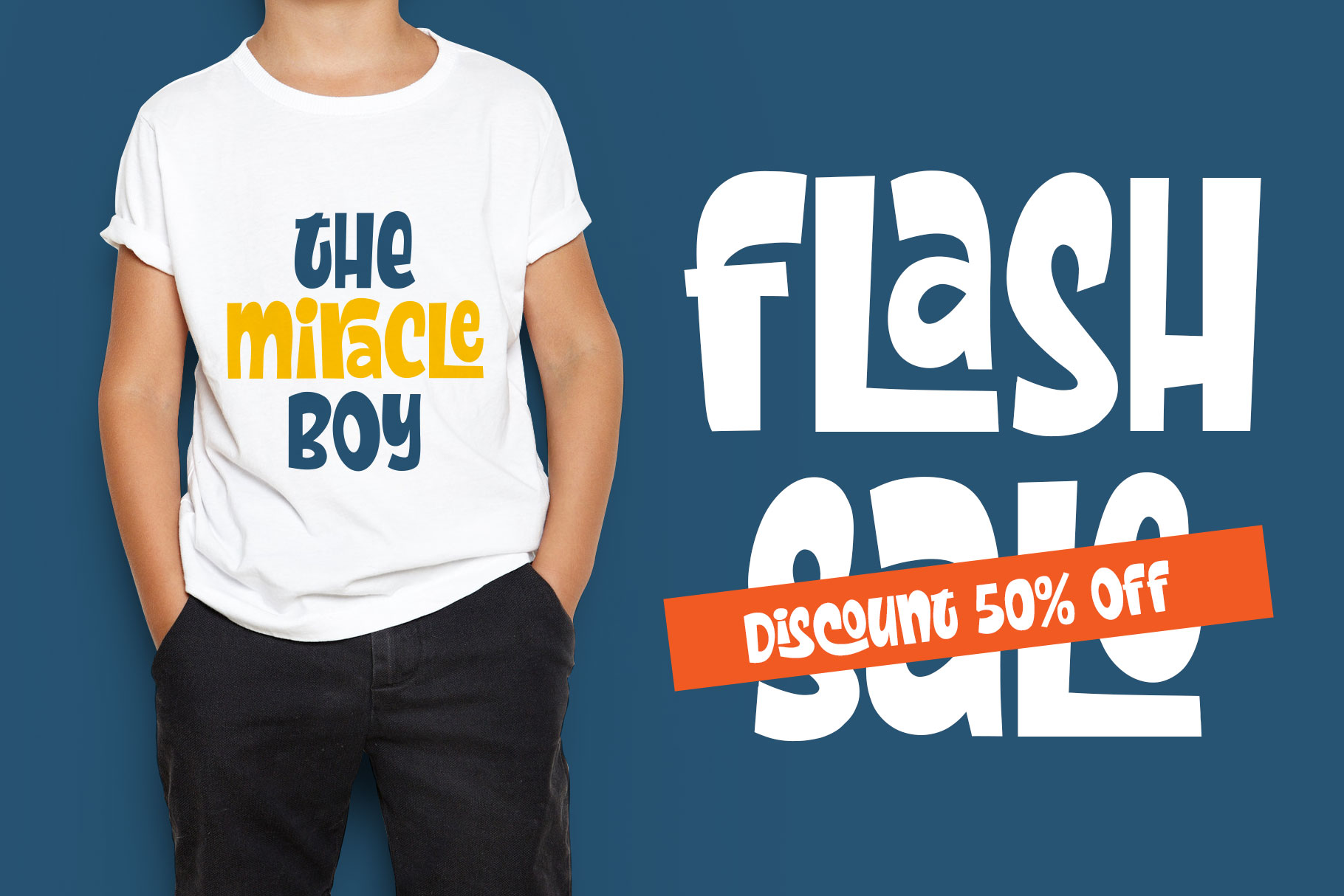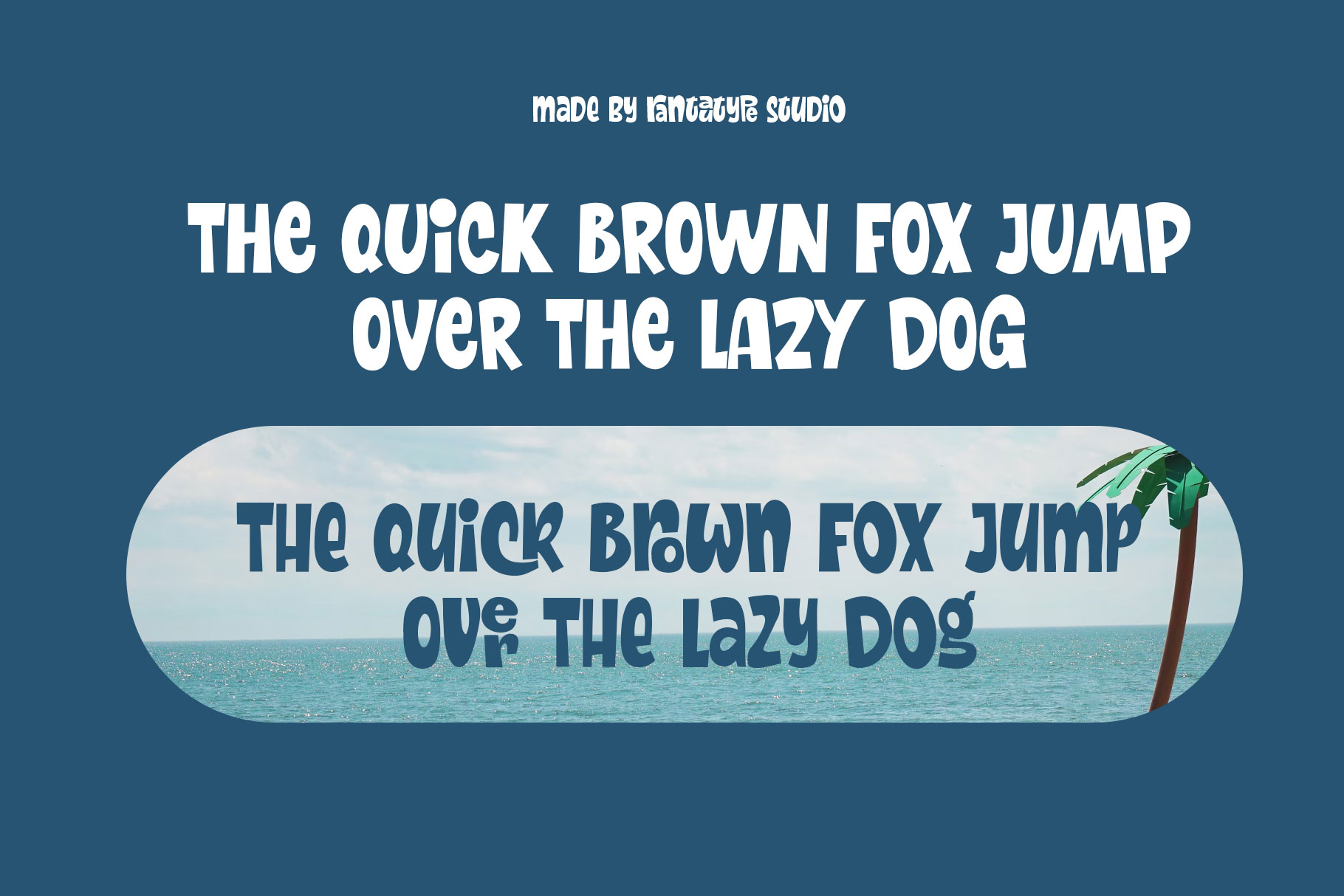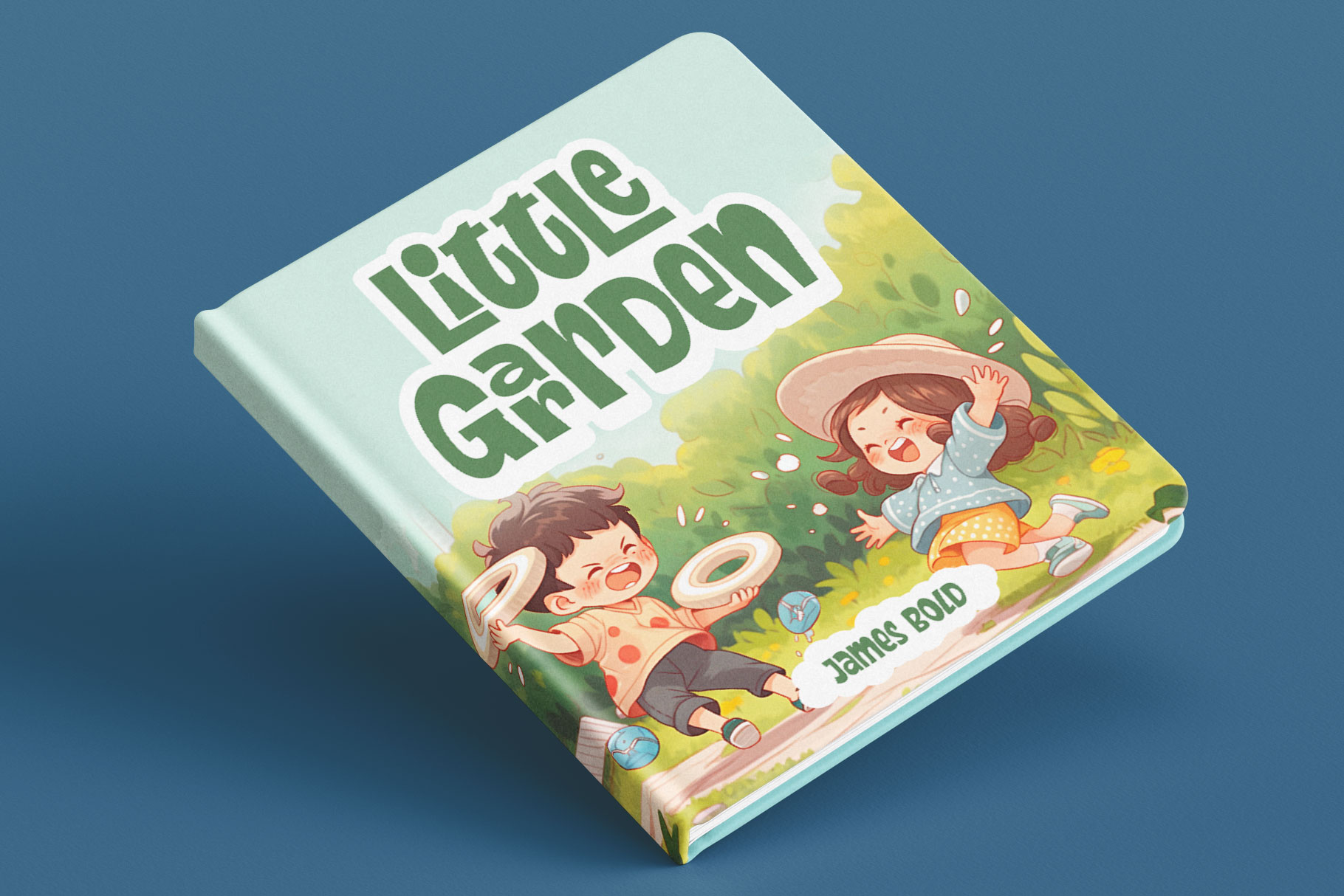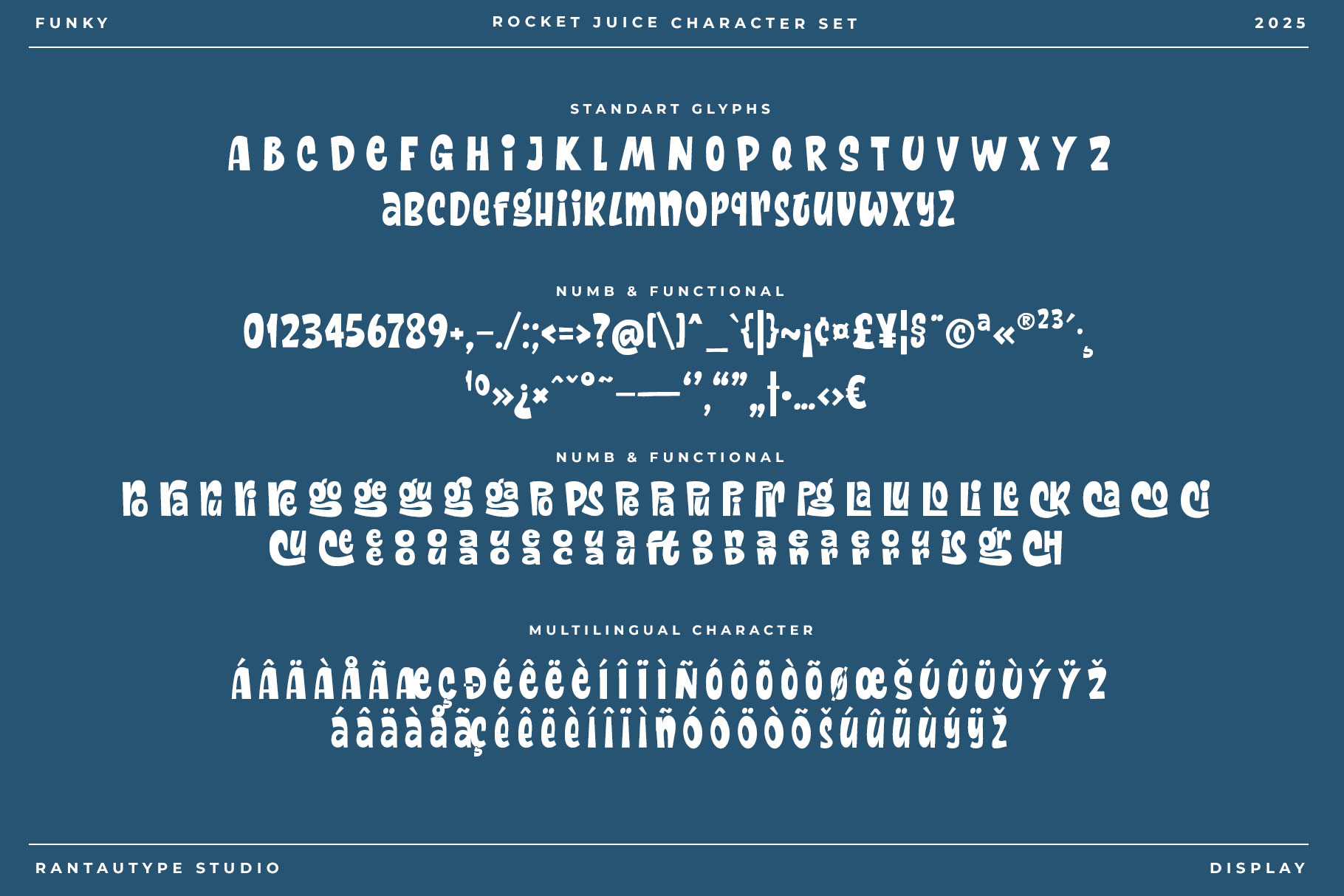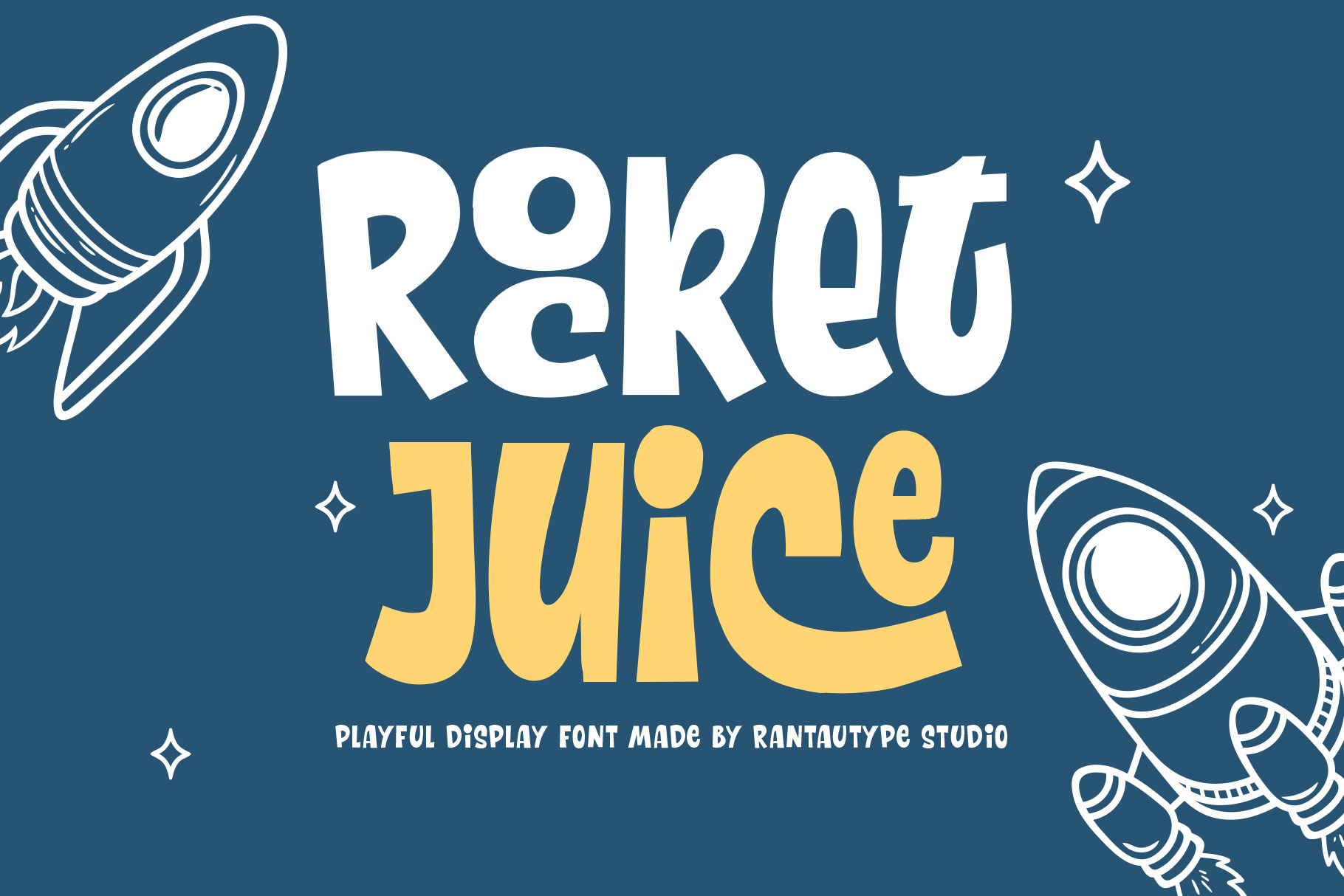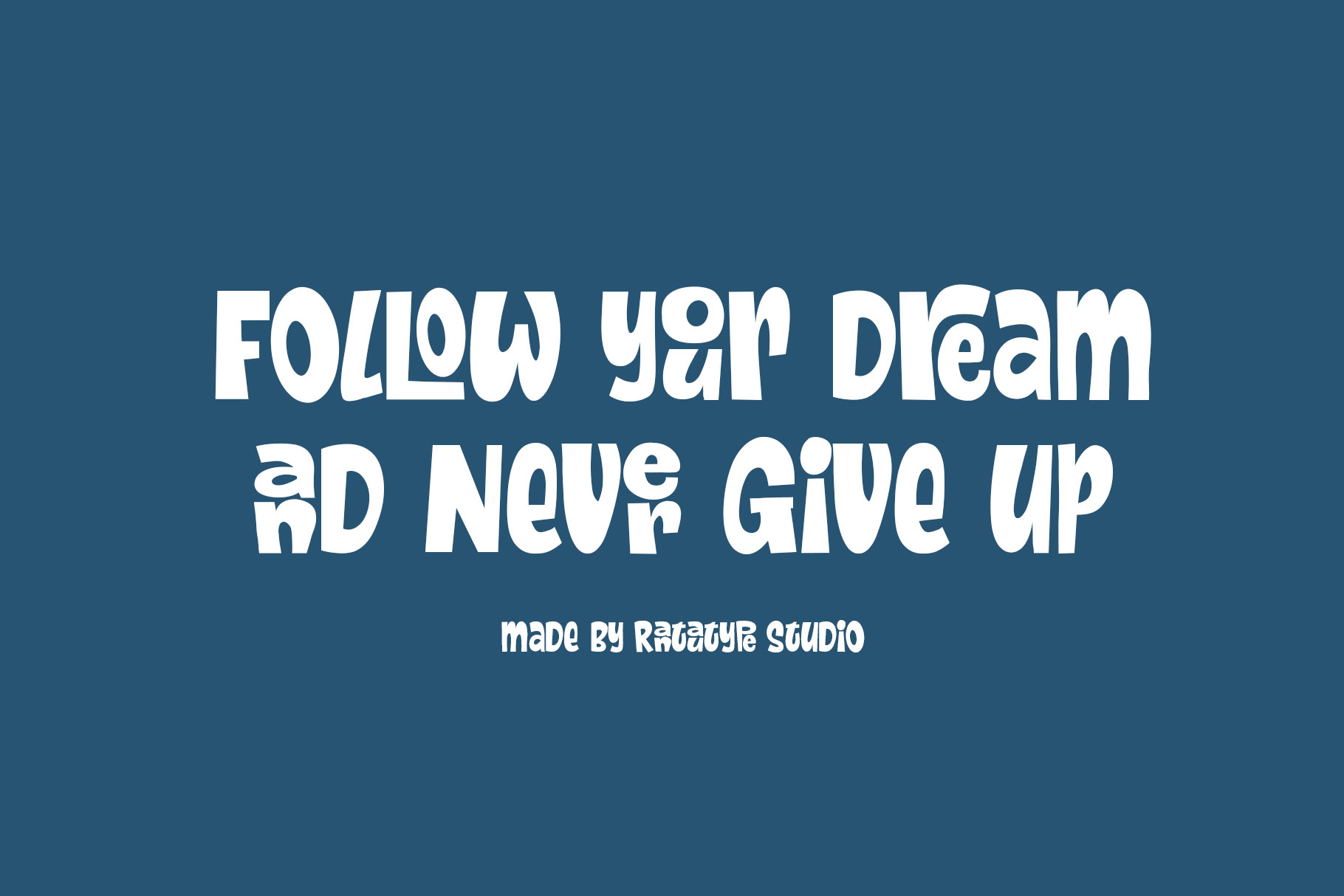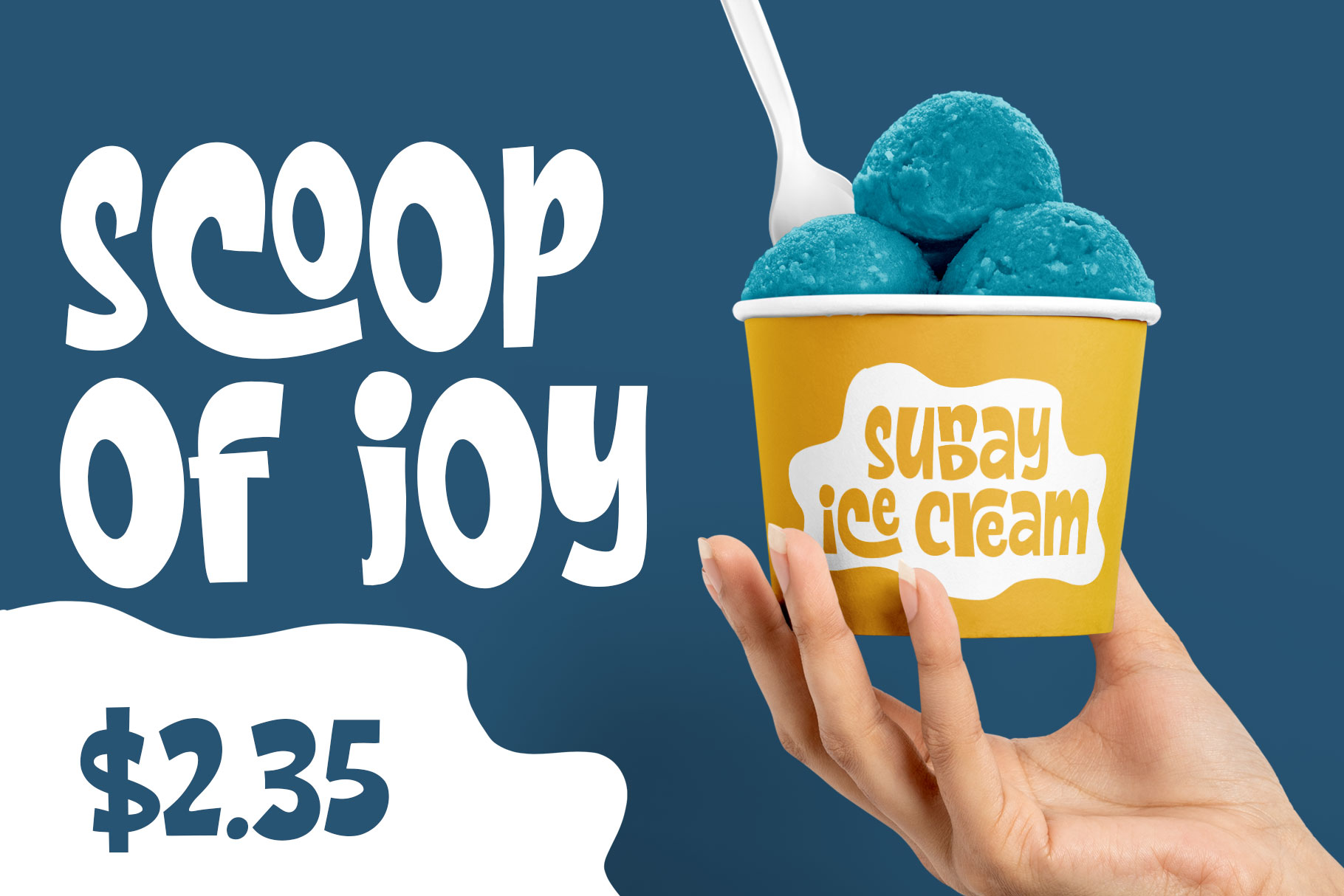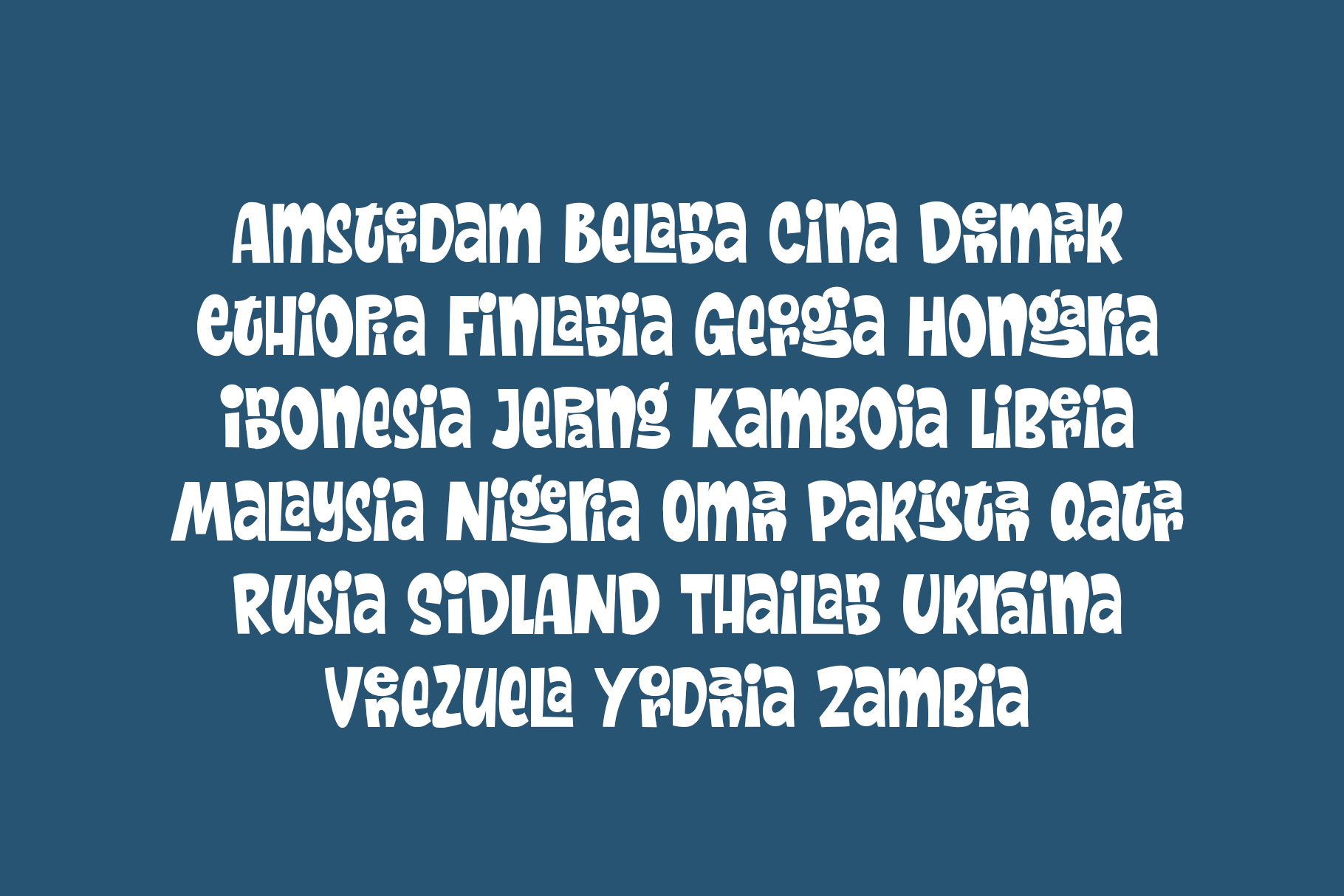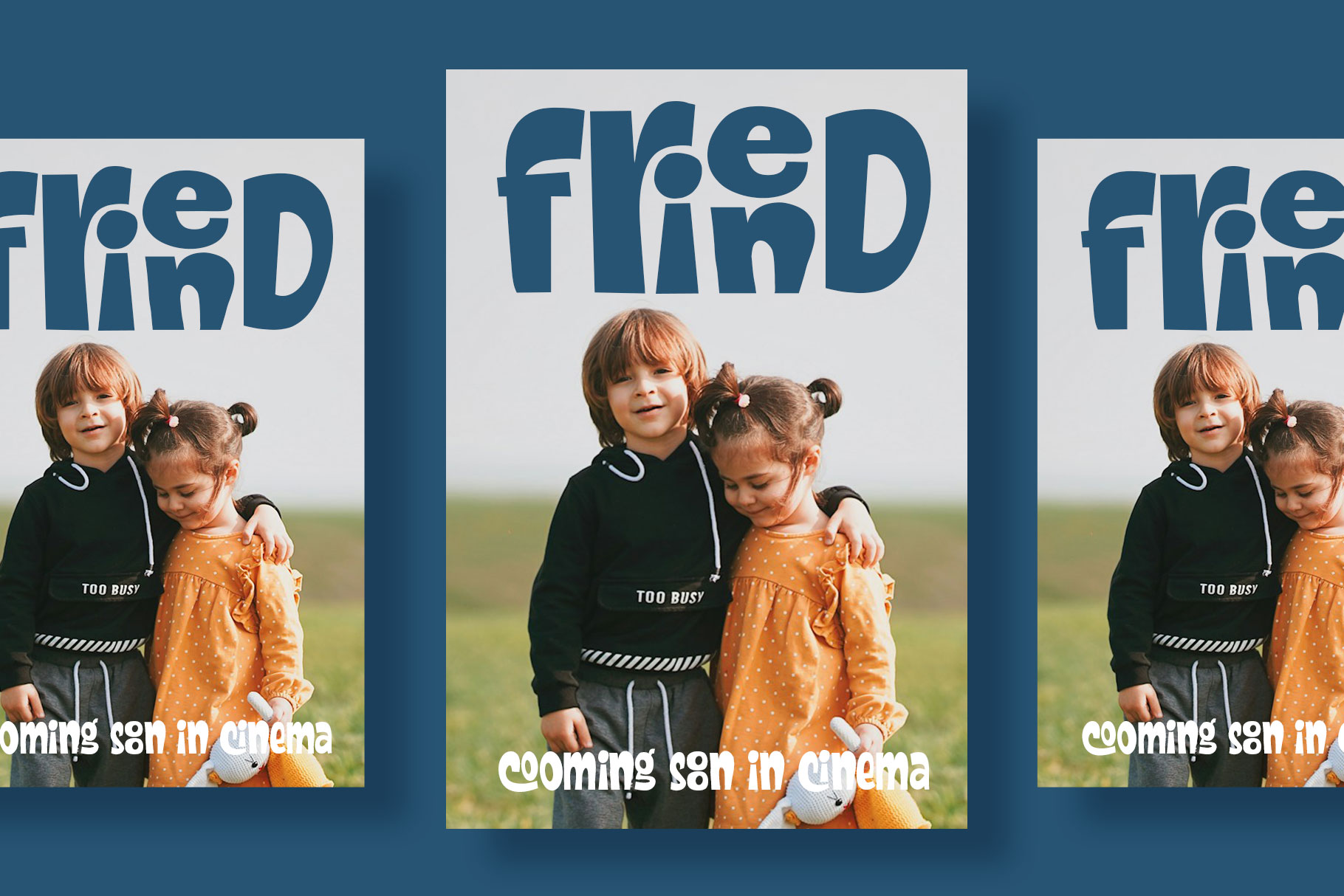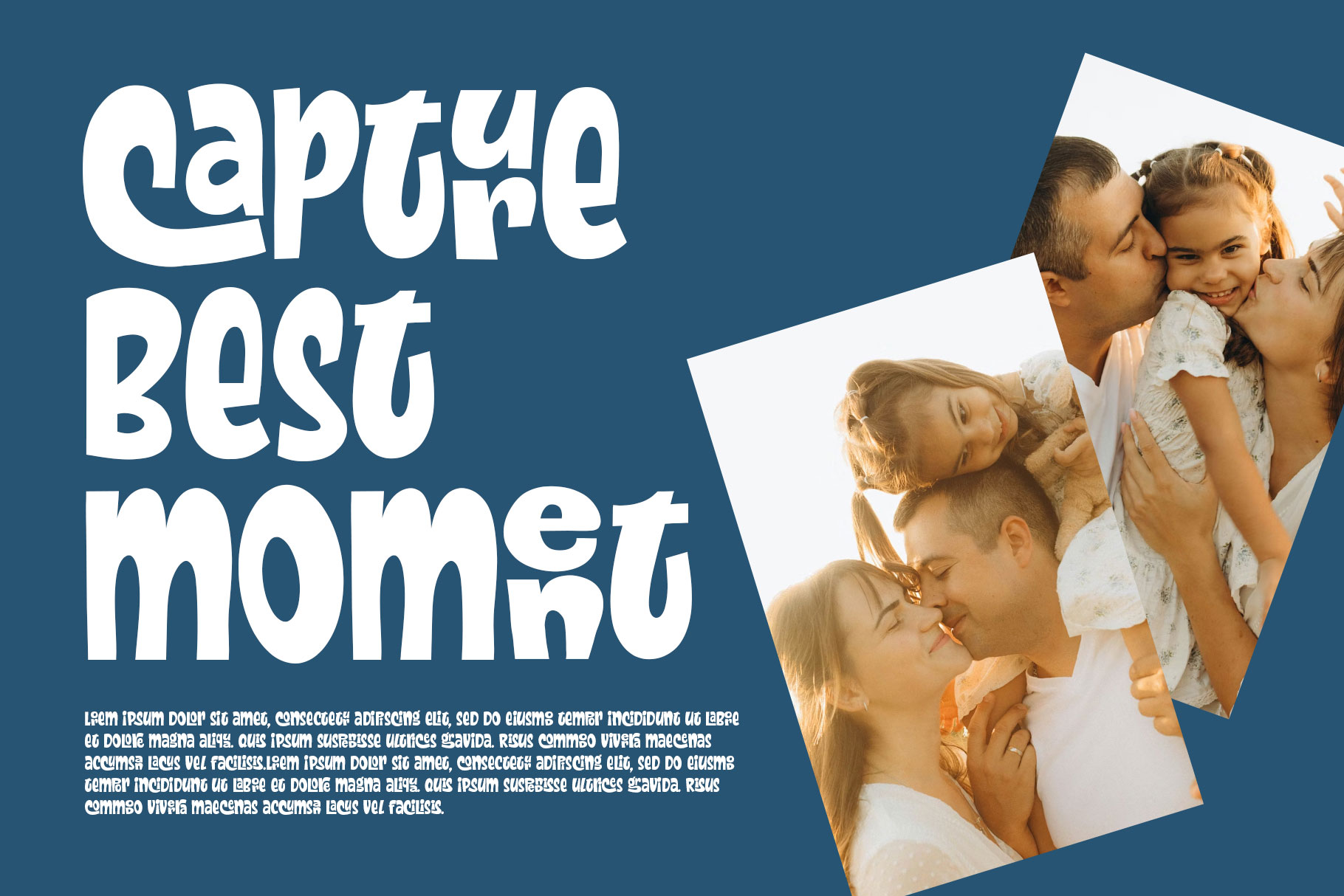
Rocket Juice Funky Display Font
Rocket juice is funky display font with perfect blend of imagination, boldness, and youthful energy. Rocket juice captures the spirited essence of hand-drawn cartoons, bringing expressive curves, quirky shapes, and playful proportions to every letter.
Rocket juice is a perfectly choice for any creative endeavor, creating, modern, lifestyle design such as logotype, title, cover, branding, invitations, wedding designs, display and magazine, social media posts, advertisements, printed quotes, product packaging, corporate brand, product designs, labels, photography, watermarks, special events and any other project with cartoon touch.